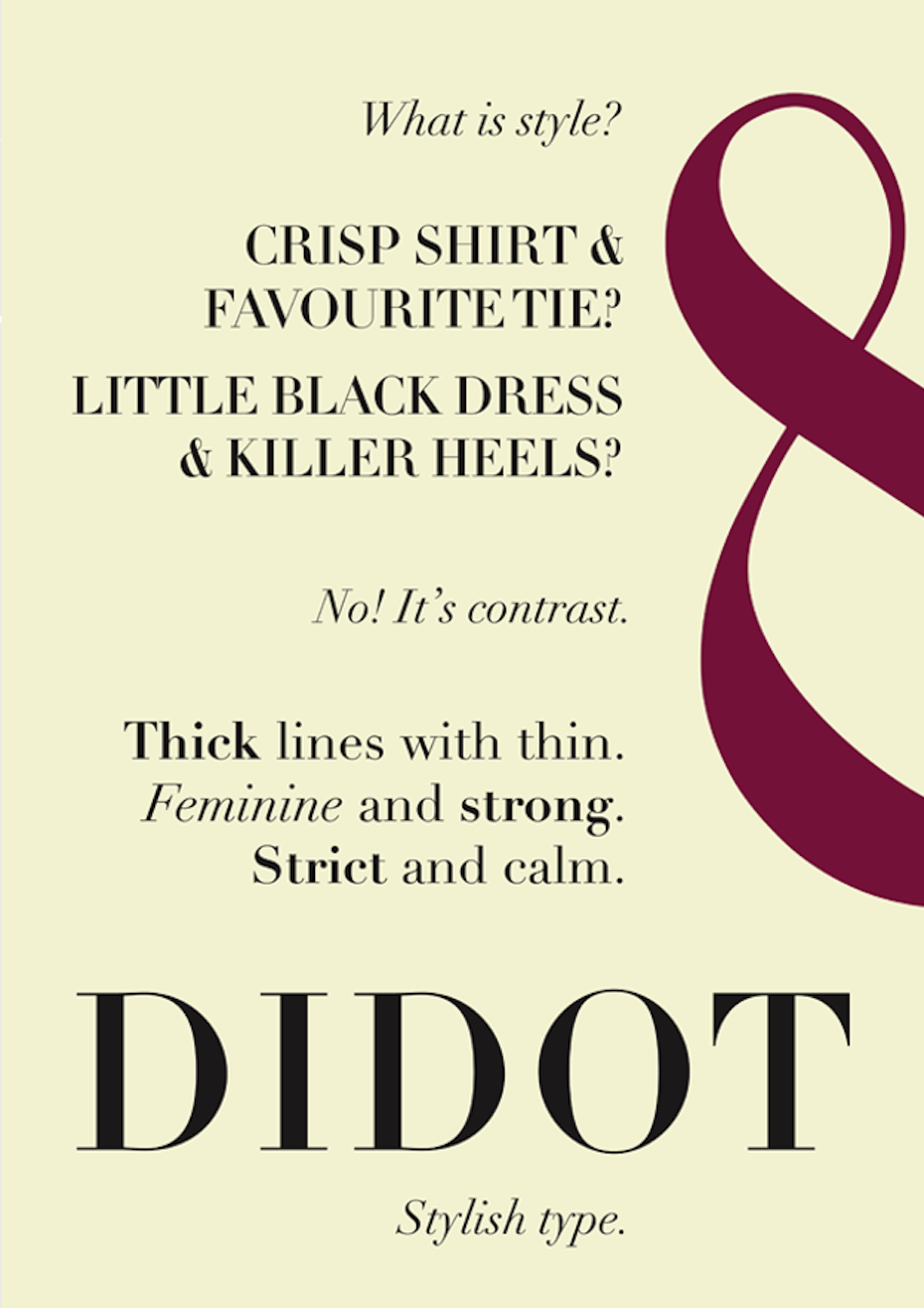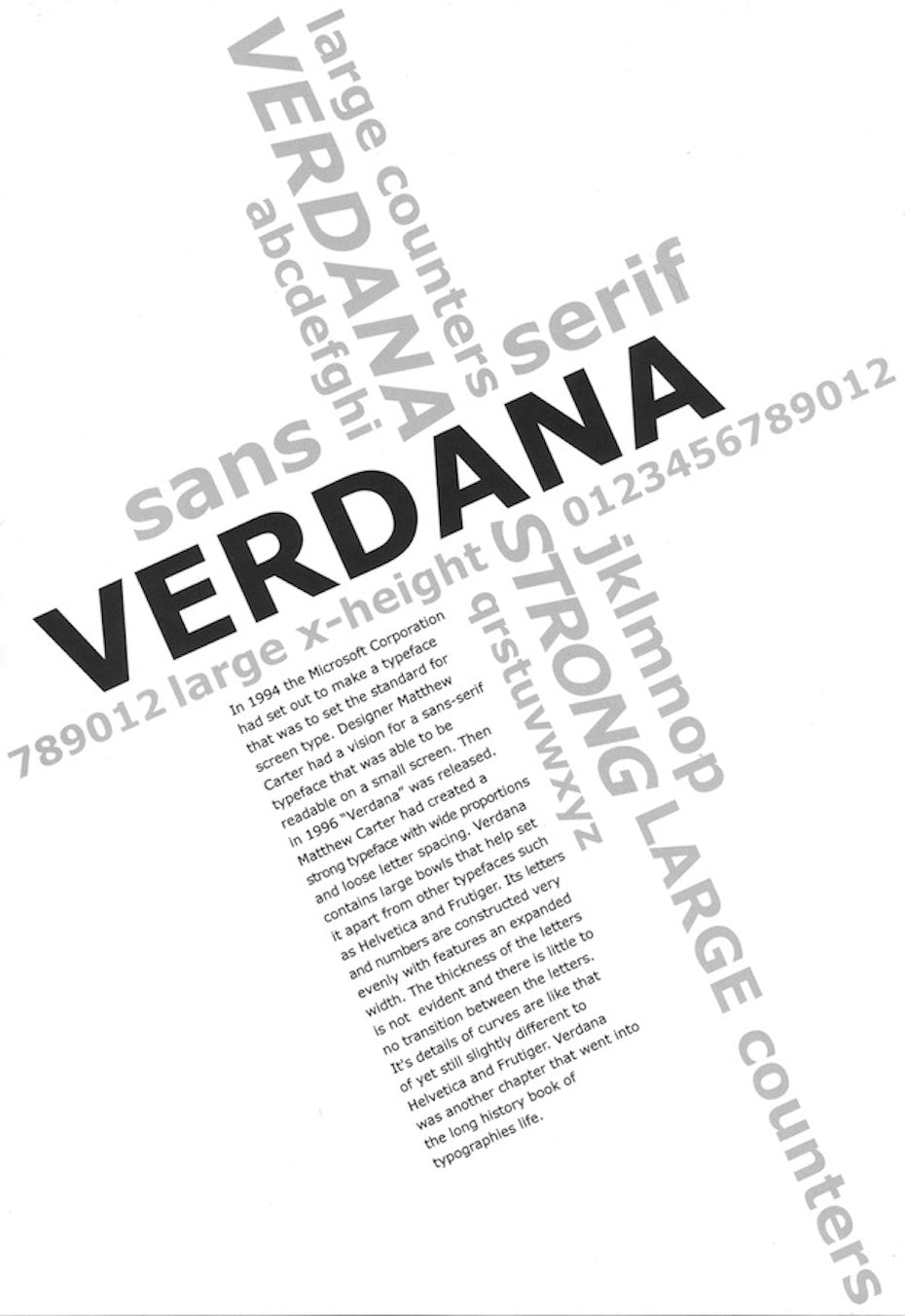
Designers are, without question, an opinionated bunch but when it comes to typography, man you really see the sparks fly! Comic Sans has entire websites devoted to hating it, while Helvetica boasts a documentary film committed to its worship.
Recently, typography luminary Peter Biľak embarked on a fascinating project: to determine what exactly makes a typeface beautiful and what makes one ugly. He suspected that these two poles are in fact two sides of the same coin and his findings strongly confirmed this to be the case.
For his exemplar of beauty he chose Bodoni, a lovely modern serif defined by its high contrast between thick and thin lines. For his exemplar of ugly, he chose the infamous “monstrosity” Pica Italian.
Like Bodoni, Pica Italian’s defining quality is a contrast between thick and thin lines. But here’s the kicker: Pica is Bodoni’s inverse —thick in the places that Bodoni is thin, and thin in the places Bodoni is thick.
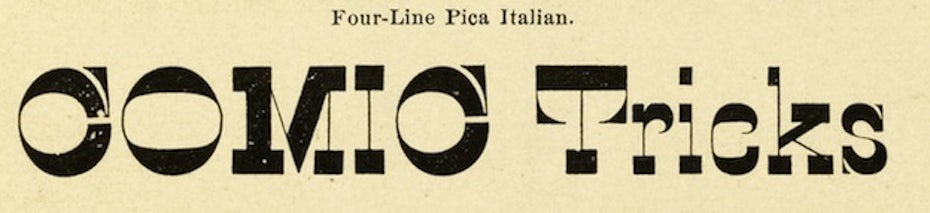
Bodoni (top) was Peter Biľak’s example of a beautiful typeface; Pica Italian (bottom) was his example of an ugly one
Could beauty and ugliness in type design really come down to the placement of weight? Biľak designed a typeface himself to test the hypothesis.
Called Karloff, it has three versions:
- “positive” – thick and thin in the conventional places
- “negative” – thick and thin in the reverse
- neutral – a mathematical merging of the two.
Sure enough, “positive” turned out to be a real beauty, while “negative” is hard to look at. And “netural” is, well, neutral.
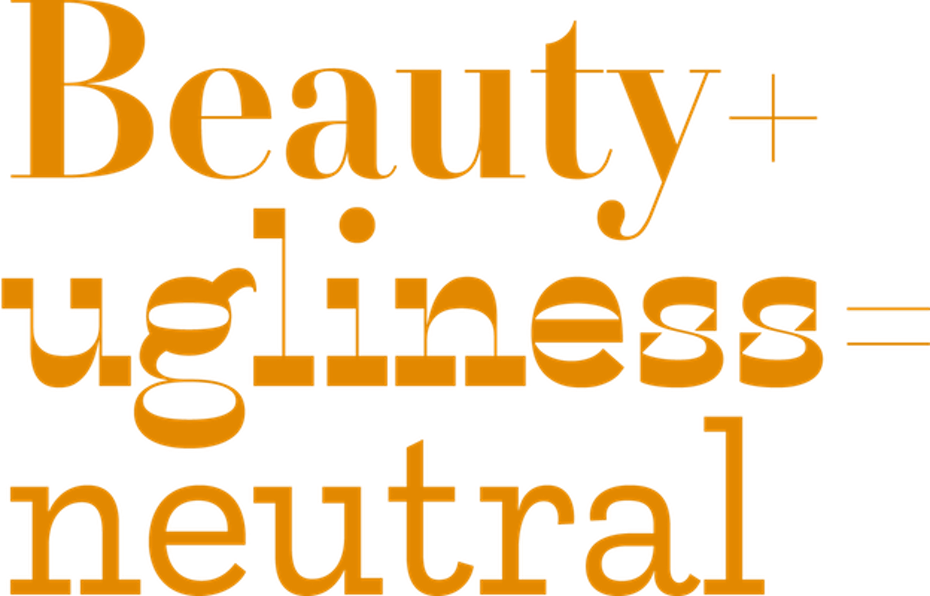
Karloff positive (top), Karloff negative (middle), and the neutralized combination of the two (bottom)
Enthralled by Biľak’s discovery, we decided to tackle the even broader question of why some typefaces receive so much love and others, so much hate. The answers, we believe, are much more complex than simple aesthetic judgment.
Here are the hypotheses we came up with. First we’ll look at the hated, then the loved.
Why the hate?
The tar pit of history
People love to hate typefaces like Brush Script and Souvenir (“Real men don’t set Souvenir,” type scholar Frank Romano famously said), but are they really so terrible looking? Objectively, we wouldn’t say so.
The issue is that these typefaces both became extremely overused at specific moments in history; Brush Script in the 1940s-1960s and Souvenir in 1970s advertising.
As a result, it is now impossible to use either of them without bringing all of their historical baggage along too. Not a load you want to carry.
Brush Script (top) and Souvenir (bottom) are the opposite of timeless — they fell into the tar pit of history
The rattle of inauthenticity
Designs like Papyrus and Neuland Inline clearly try to mimic or evoke particular “exotic” cultures or regions; Papyrus goes for ancient Egypt and Neuland Inline — some sort of African tribal situation. This sort of contrived exoticism rings awfully false and is frowned upon with good reason.
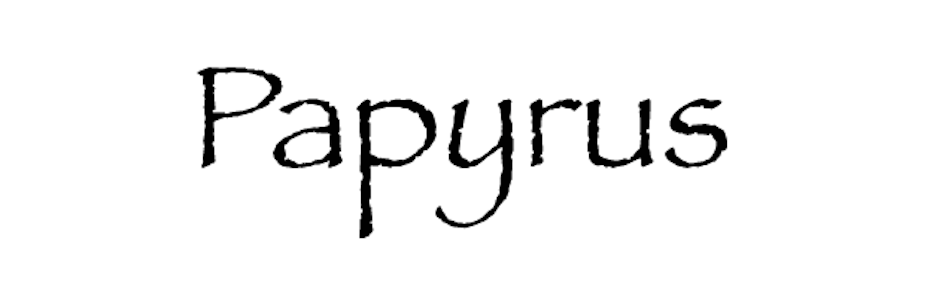
Papyrus (top) and Neuland Inline (bottom) smack of inauthentic exoticism
The vice of gluttony
Let’s get one thing straight: at the end of the day, the purpose of a typeface is to be legible. Certain typefaces, however, overindulge in “design” to the point of becoming hard to read.
Jokerman and Matisse, for example, lose sight of their core purpose and justifiably incur the wrath of type nerds everywhere.
Jokerman (top) and ITC Matisse (bottom) are two examples of gluttonously over-designed typefaces
The just-plain-ugly
As Biľak demonstrated with Pica Italian, some design styles appear fundamentally ugly, simple as that. Many people found 2012 Headline, the typeface created for the London Olympics, rather unsightly.
Copperplate Gothic, in addition to not actually being gothic, fuses a stone-cut look with a Victorian display style to produce something that is simultaneously abrasive and dull — definitely one of our least favorites.
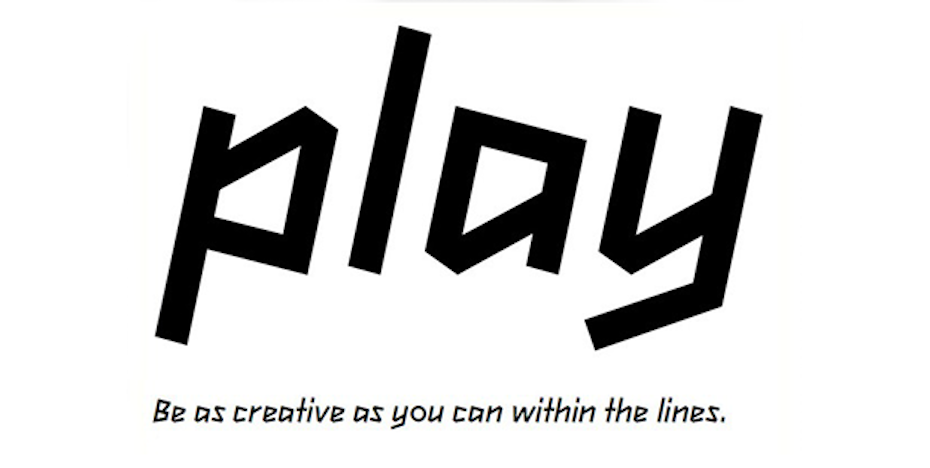
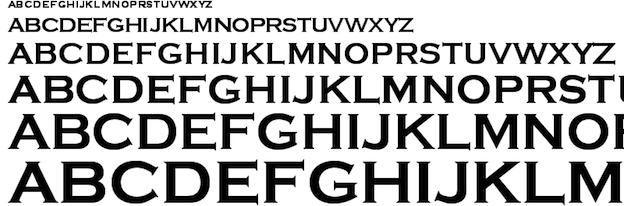
2012 Headline and Coperplate Gothic have gotten bad raps for being, well, ugly
The opiates of the masses
Comic Sans, Arial, Harabara. These typefaces receive by far the most hate mail of all. But really, calm down, take a deep breath and consider: are they really that bad? After all, they must have become popular for a reason, right? In fact, we think that’s exactly it: people like to hate these designs because they’re so popular.
When it comes to logo design, that’s a different story, as an overused typeface will actually decrease the design’s potential to serve as a unique, distinctive and effective branding. So lose Harabara, logo designers.
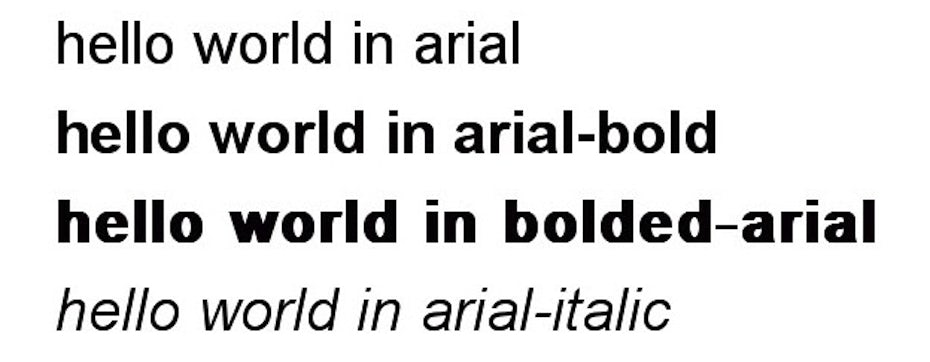
Comic Sans (top), Arial (middle), Harabara (bottom) have won the popularity contest but little else.
Why the love?
Test of time
Here are some of the typography world’s most beloved typefaces: Garamond (1540), Clarendon (1845), Times New Roman (1931).
Conclusion
That’s a lot of factors, and this list surely doesn’t come close to exhausting all of the criteria that typography critics consider when evaluating a font. Which means, beyond baseline factors like legibility, any font’s reputation is up for discussion.
So in the spirit of active criticism, let’s reconsider a typeface whose fate has not yet been sealed: 2012 Headline. Contrary to popular consensus, we loved the London Olympics logo. We’re undecided on the typeface, though.
What do you think — beauty, or beast?